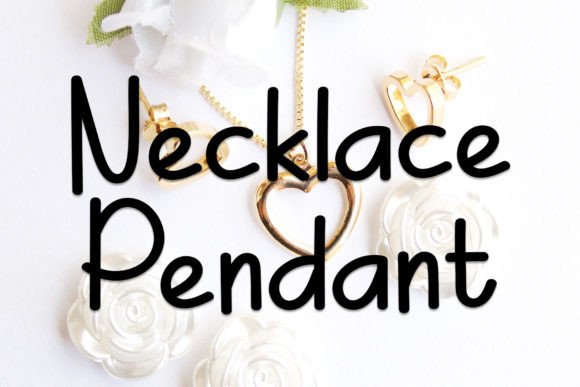
Journey into the world of elegance and charm with Necklace Pendant Font, a captivating handwritten font that will leave you spellbound. Crafted with meticulous attention to detail, this exquisite font exudes a romantic aura that will elevate your designs to new heights.
With its enchanting curves and delicate strokes, Necklace Pendant Font possesses a timeless beauty that will capture the hearts of all who behold it. Inspired by the intricate patterns found in vintage jewelry, this font is a true masterpiece that will add a touch of sophistication and femininity to your projects.
Whether you're creating heartfelt greeting cards, eye-catching headlines, or captivating social media posts, Necklace Pendant Font is the perfect choice. Its versatility knows no bounds, making it an essential tool for designers, crafters, and anyone with a passion for creating stunning visuals.
Immerse yourself in the world of romance and creativity with Necklace Pendant Font. Its elegant charm will transform your designs into works of art, leaving a lasting impression on your audience. Unleash your imagination and let this font guide you on a journey of endless possibilities.